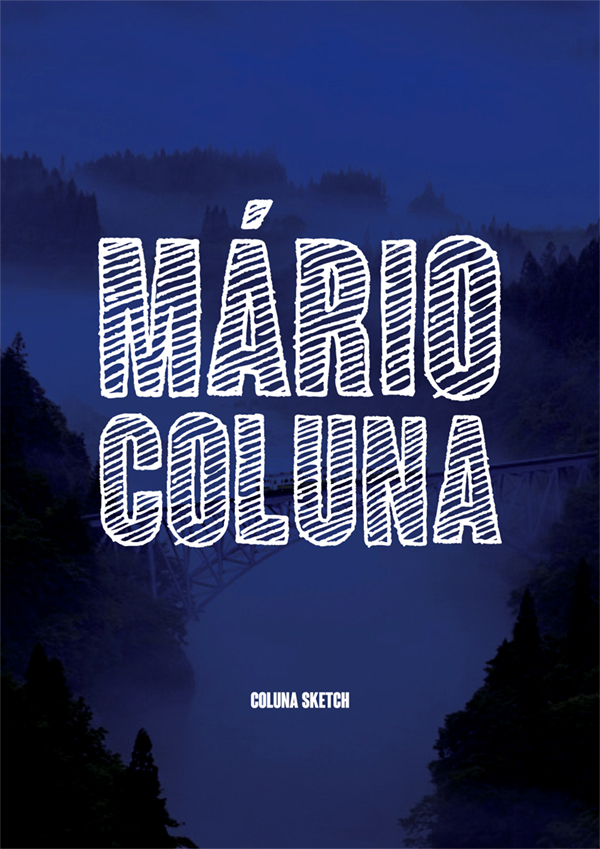
Coluna is a visually powerful, Bold, Condensed, Sans-serif. It is perfect for headlines, titles, statements, and for commercials. The name is a tribute to Mário Coluna, historical footballer, central midfielder of Benfica Lisbon. For commercial use, you can purchase the font at: http://www.jesuismonreve.org Coluna Family: Coluna Bold Condensed Coluna Rounded Coluna Outlines Coluna Sketch |